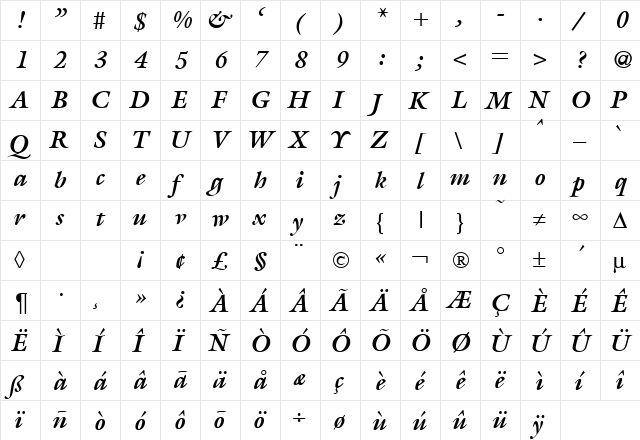
Matthew BoldItalic
Design Context for Matthew Typeface
Matthew is a composed and adaptable typeface that performs quietly and consistently across a wide range of design contexts. Its italic angle brings a sense of urgency and motion to the letterforms. Its bold stroke weight gives it real presence on the page.